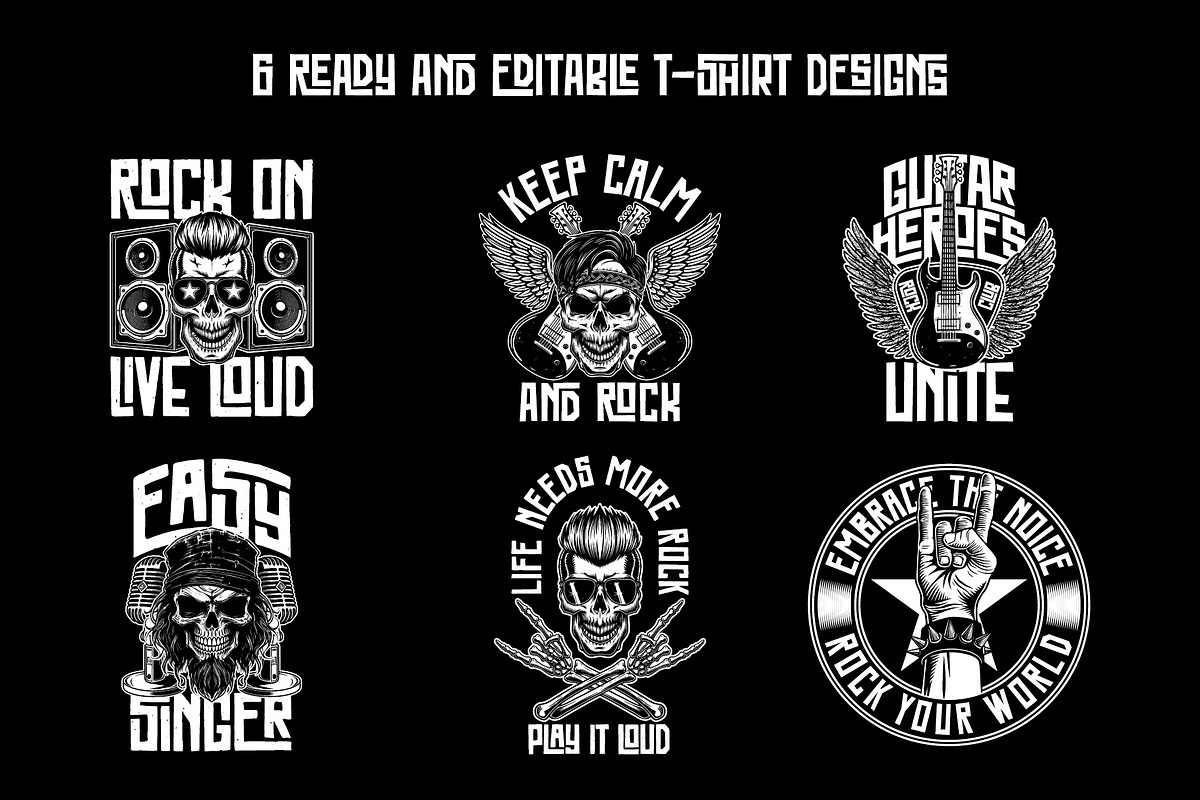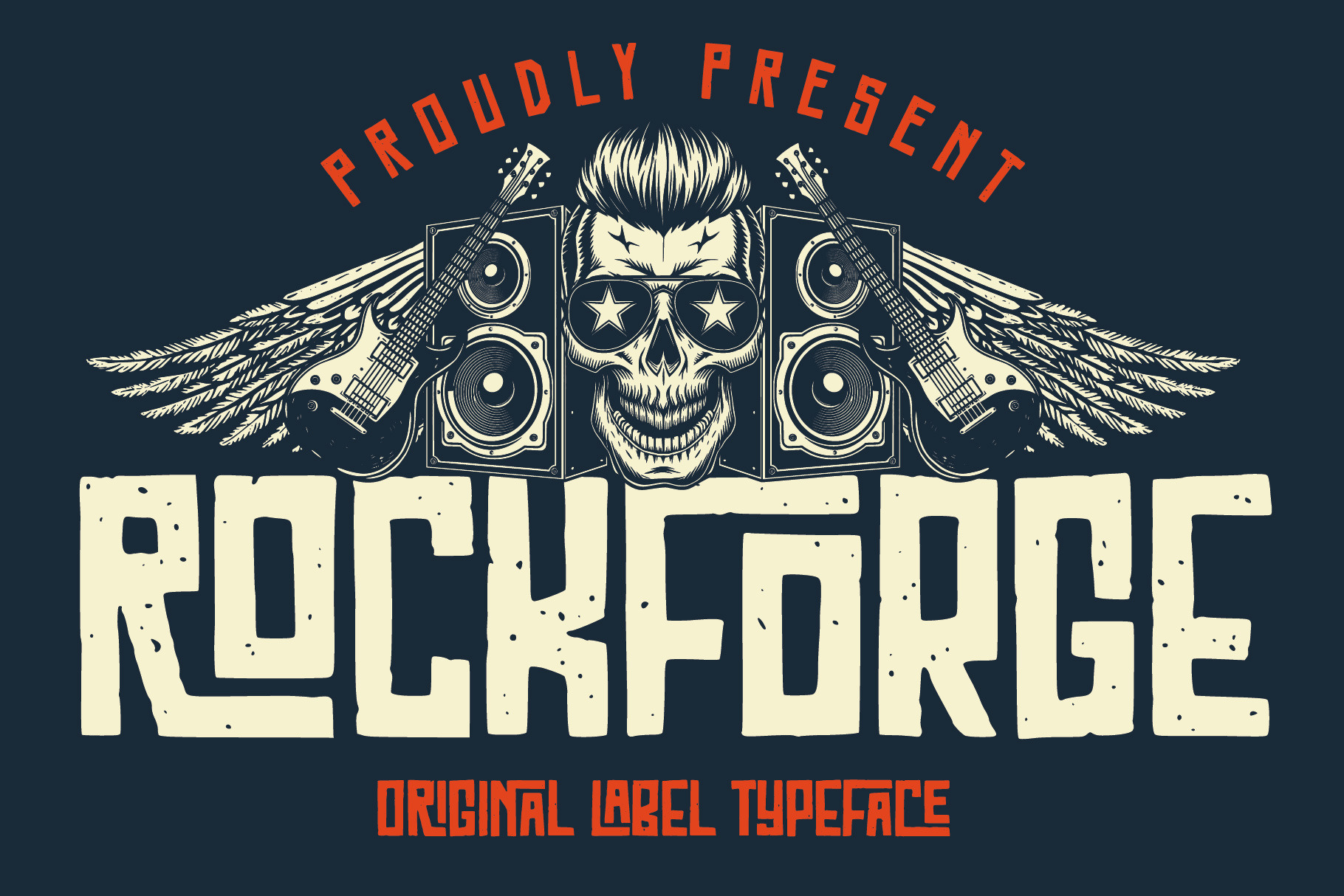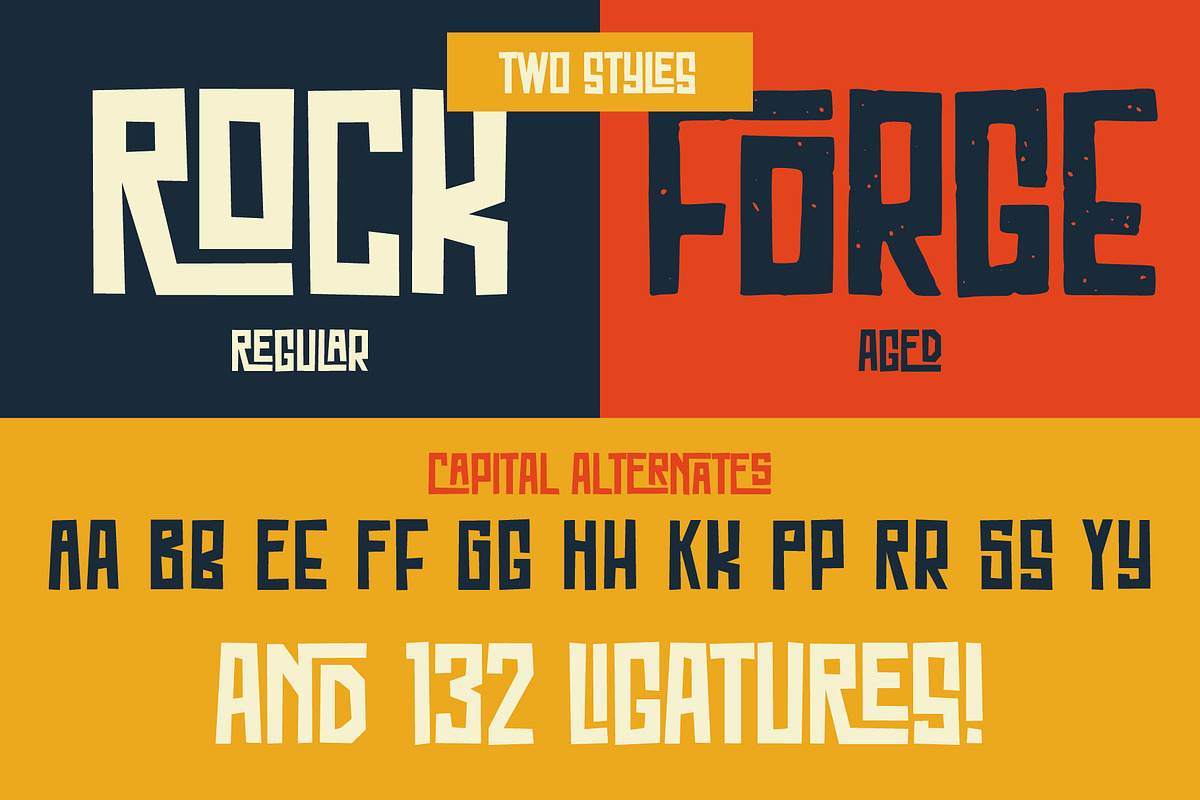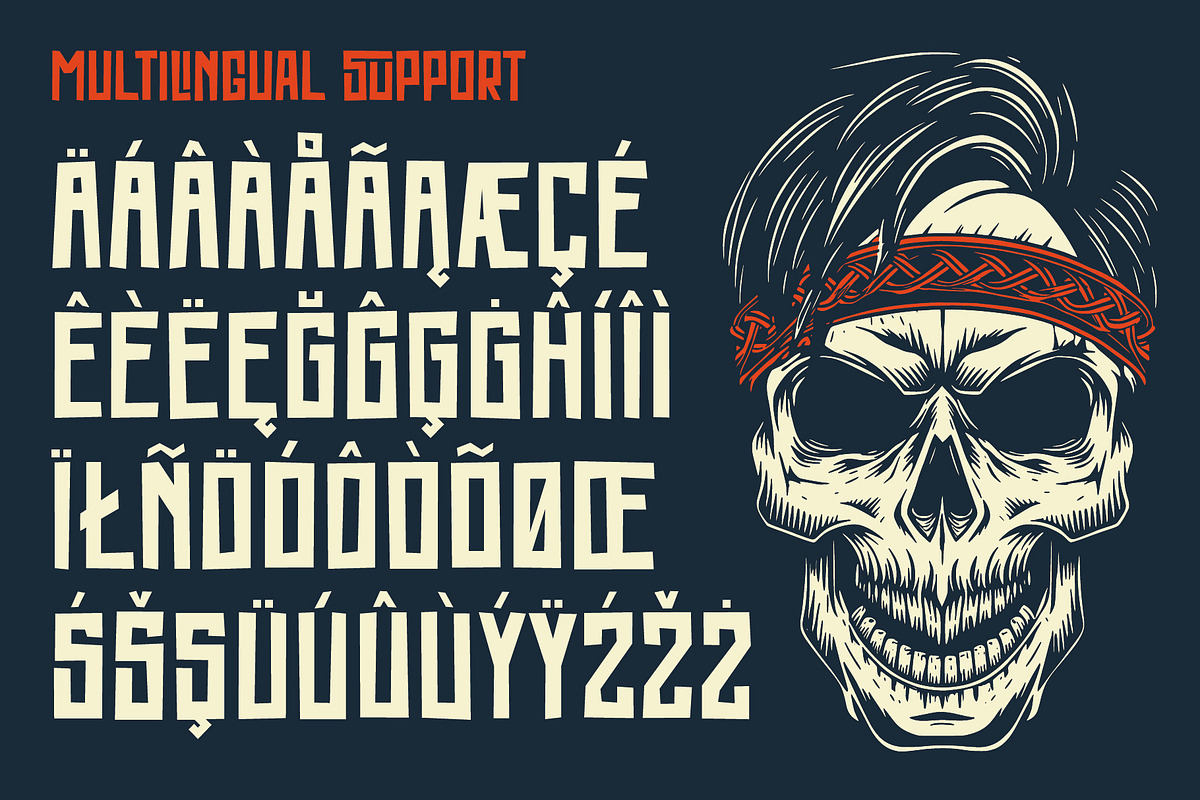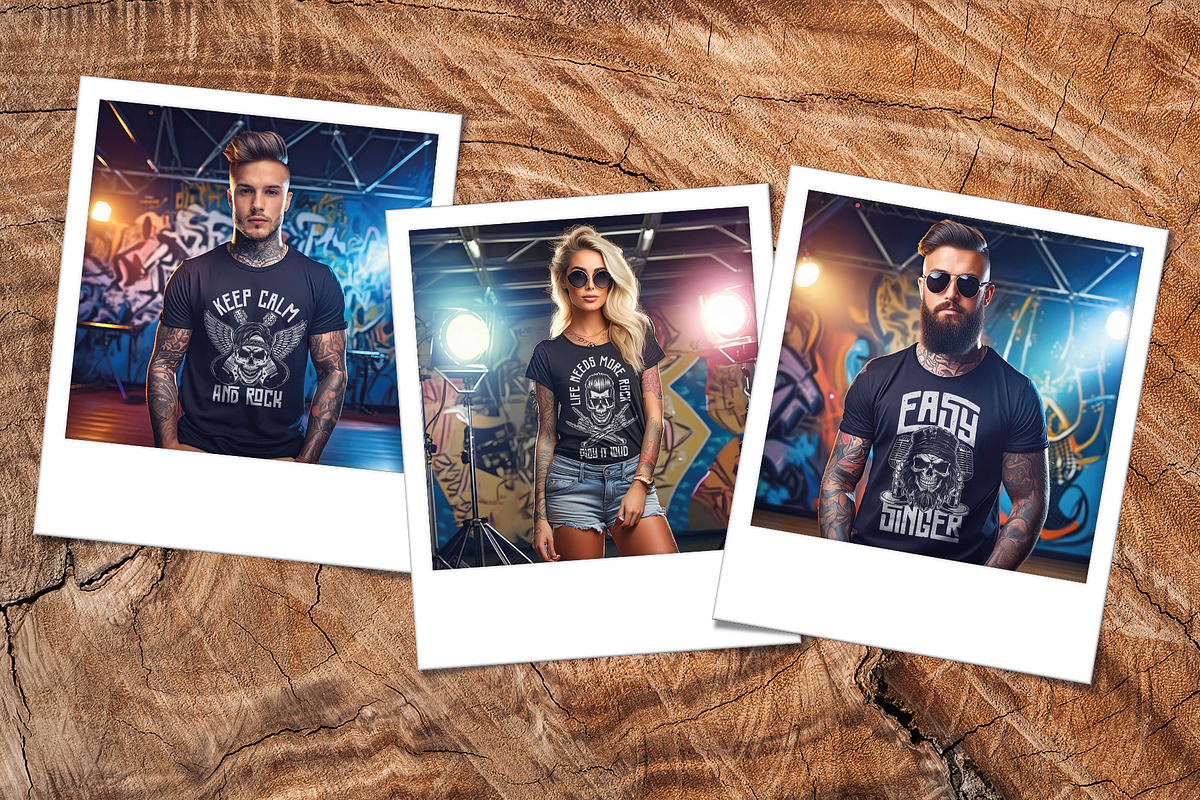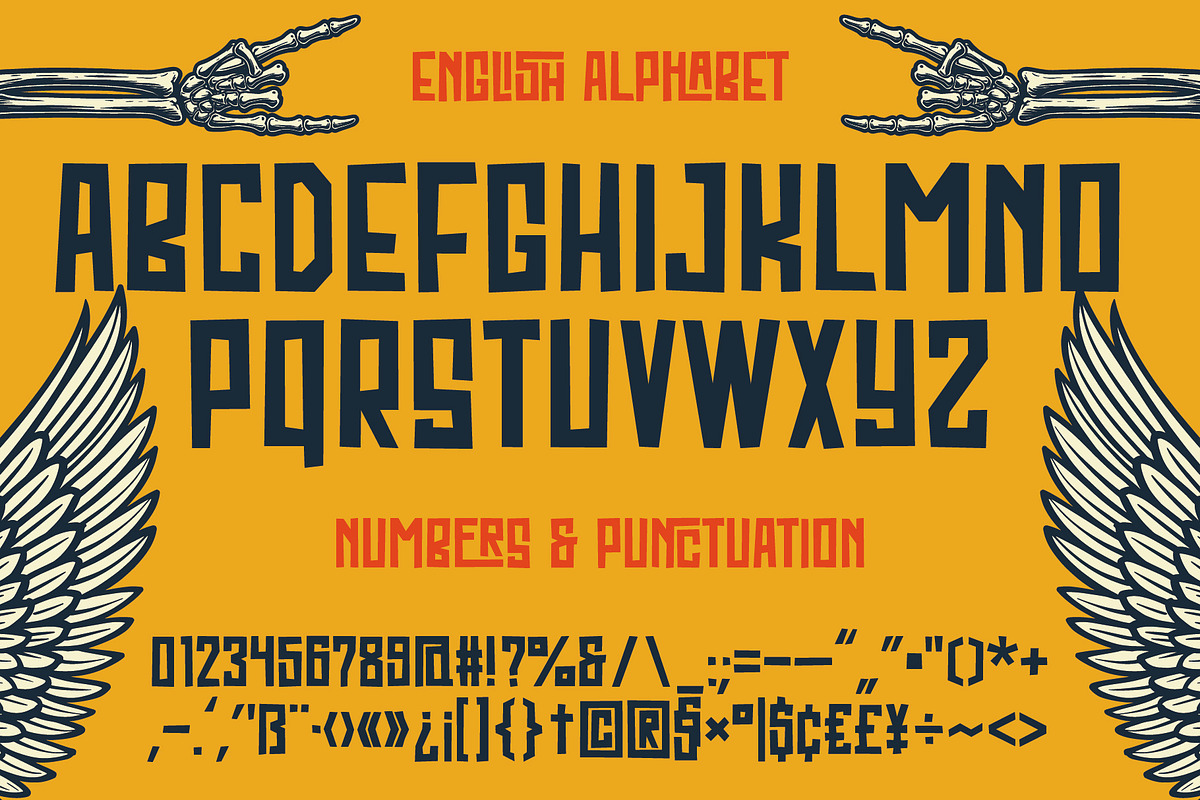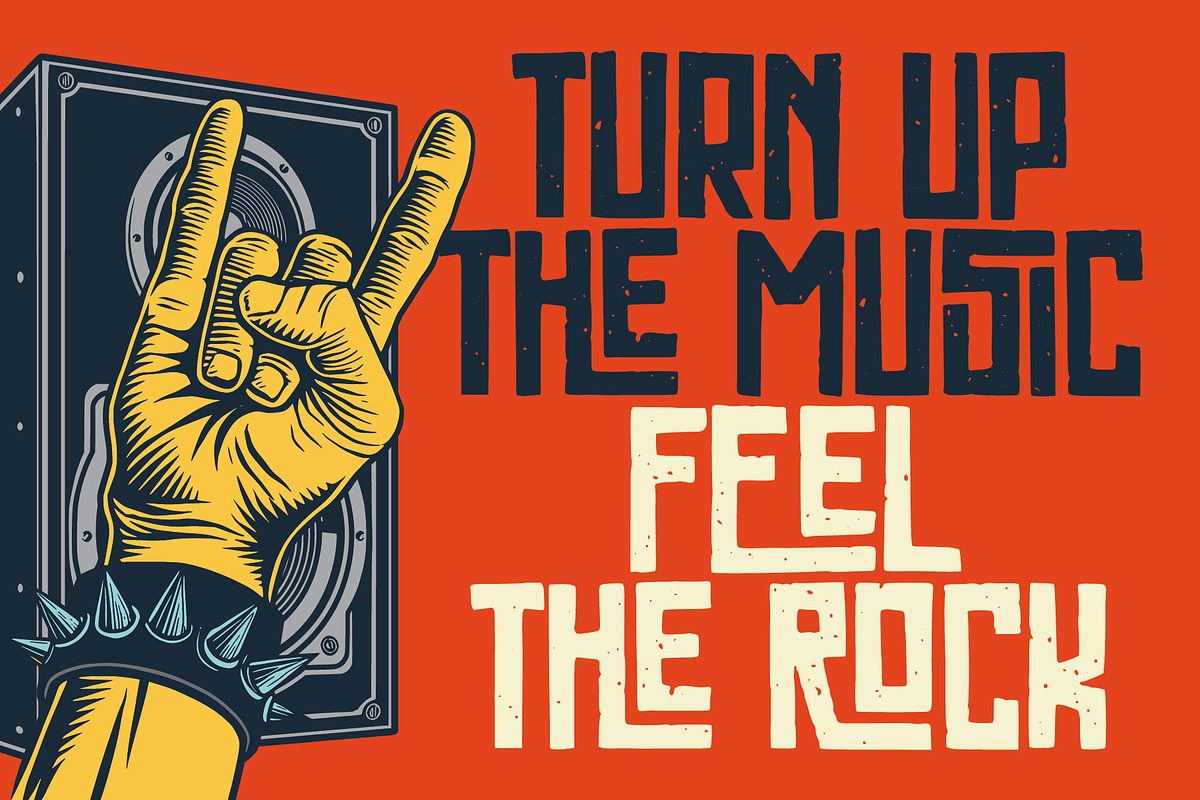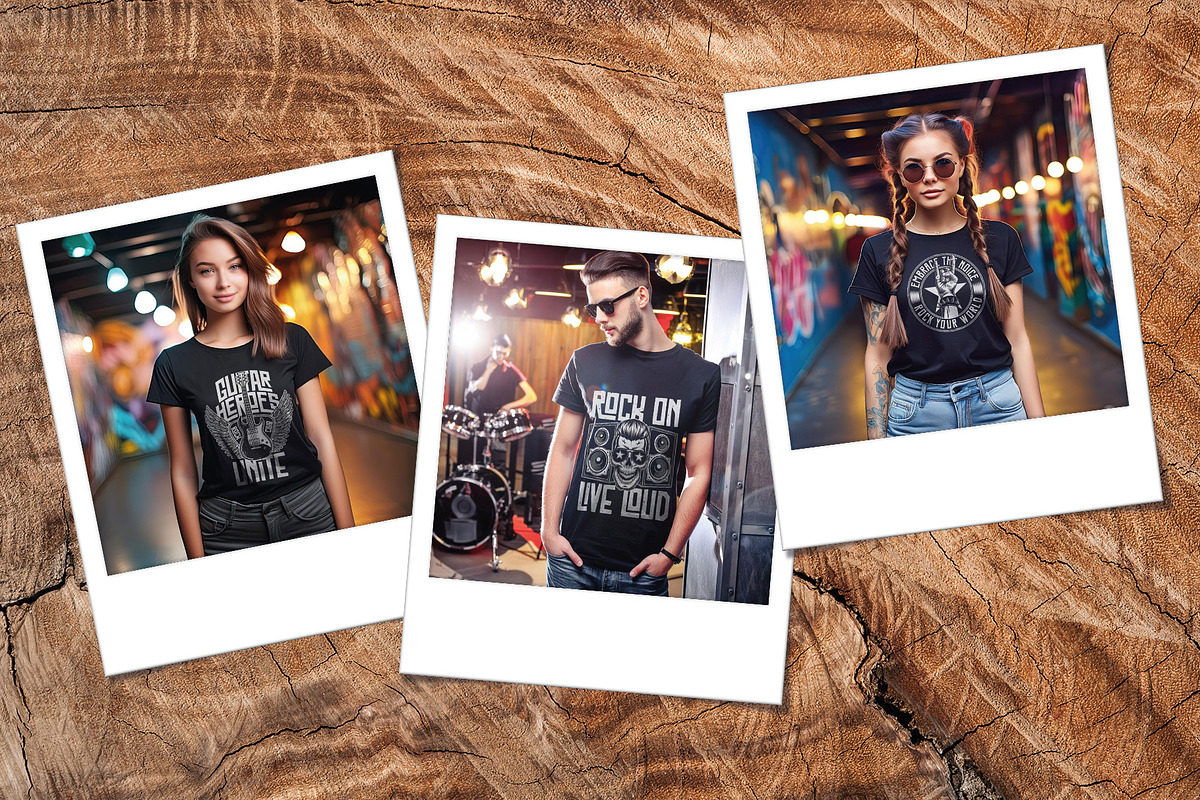
Rockforge Label Font
Introducing original label font named Rockforge. This font family has an additional characters and multilingual support (check out all available characters on preview), also this typeface has a lot of ligatures. The font family has two styles: Regular and Aged. This font will look good on any vintage styled designs like a poster, T-shirt, label, logo, etc.
- A lot of additional symbols and multilingual support;
- 132 ligatures (make sure that your application supports the use of standard ligatures);
- Some capital letters has alternate form! Please check it on the preview